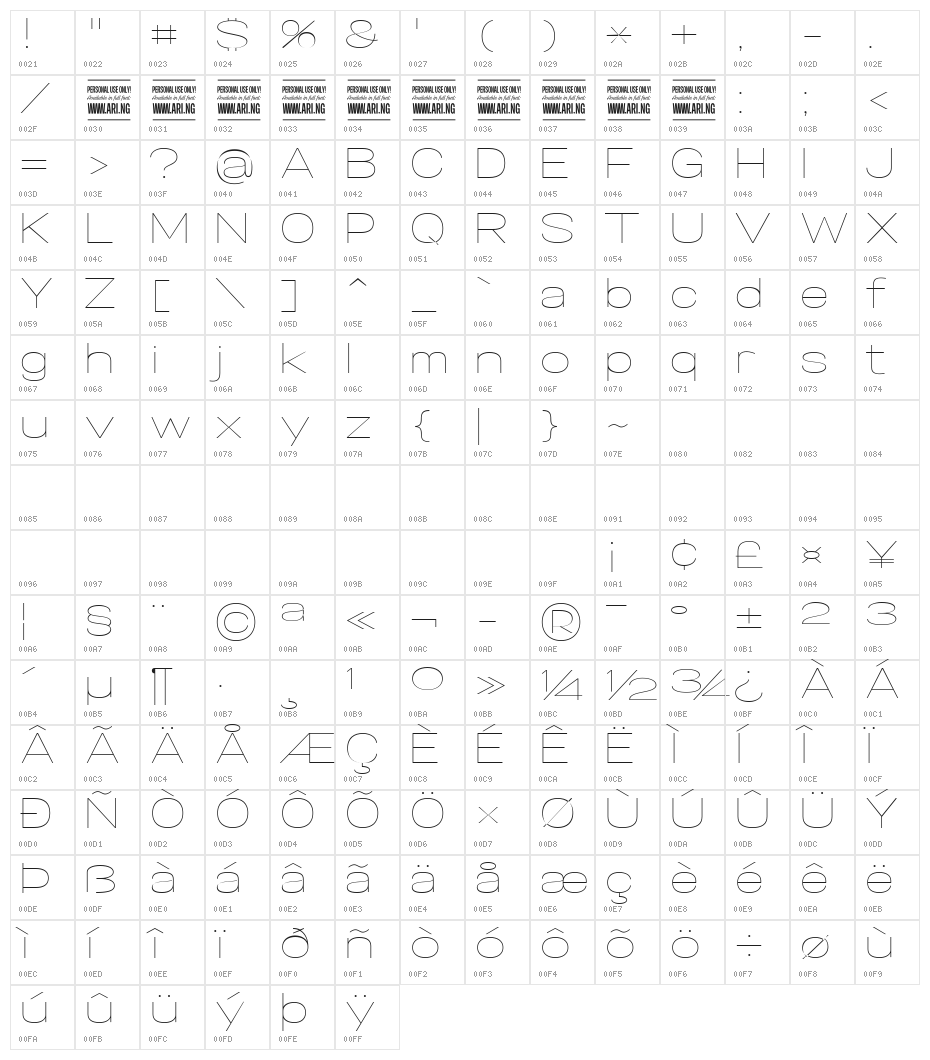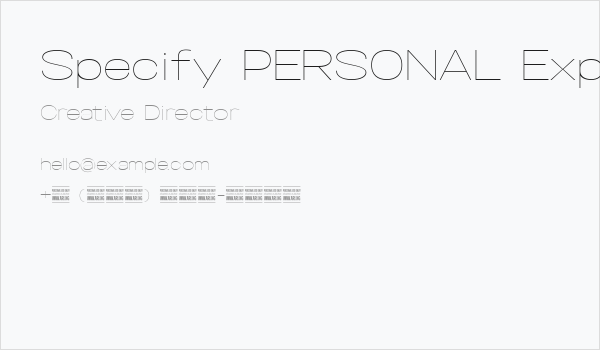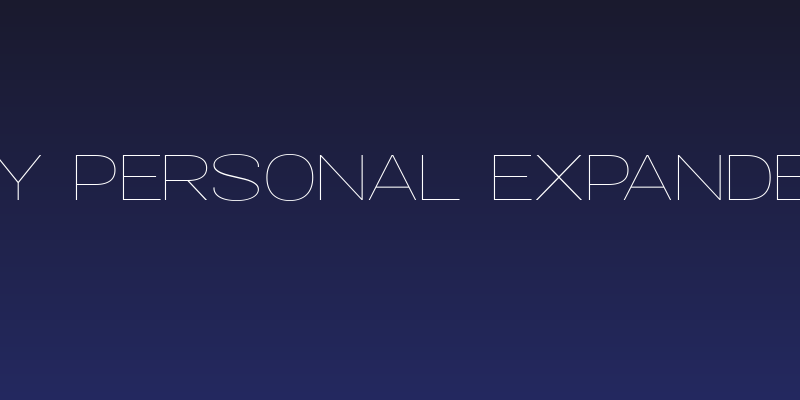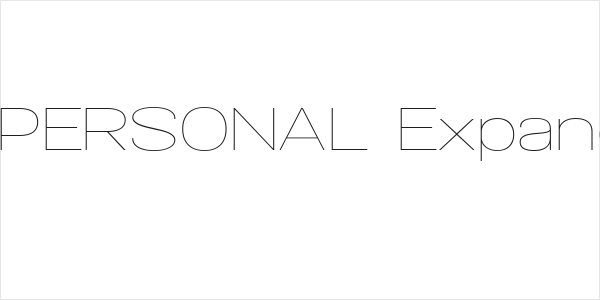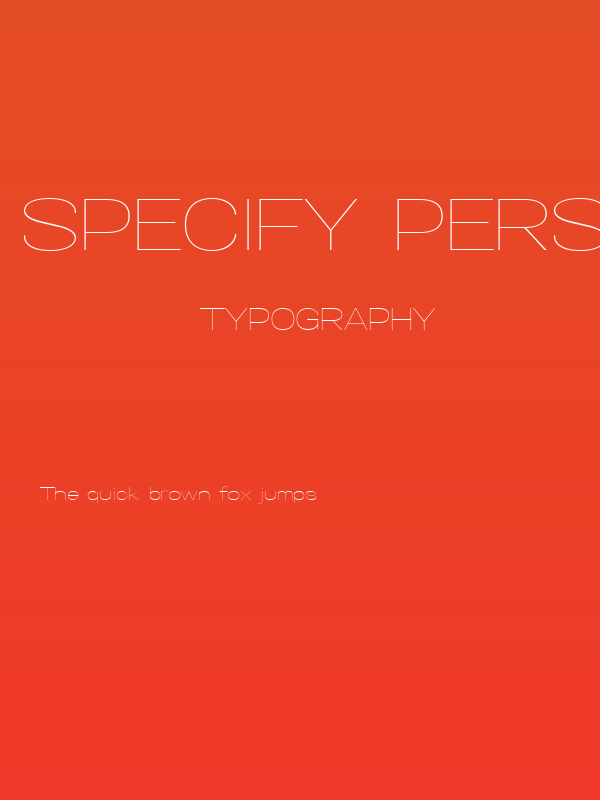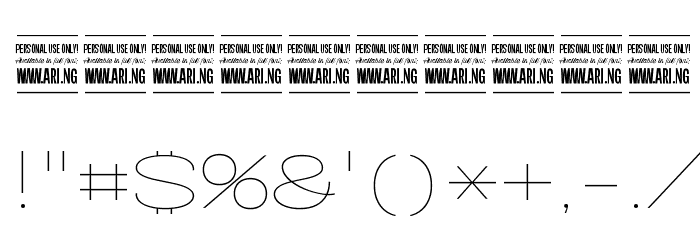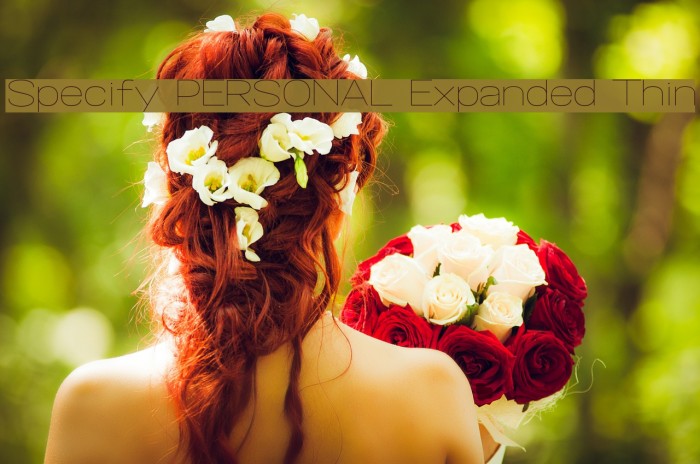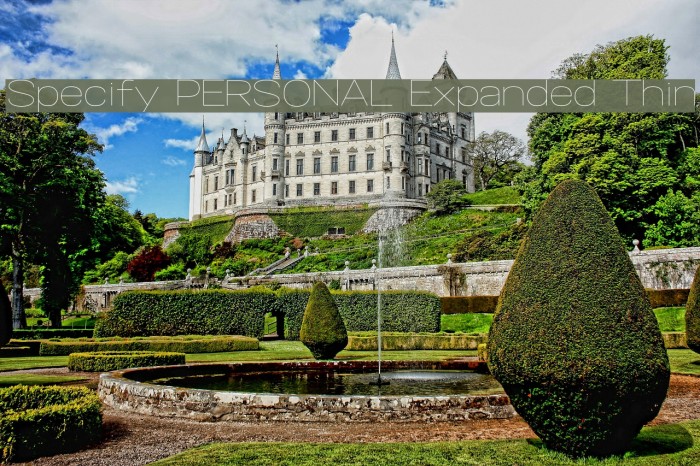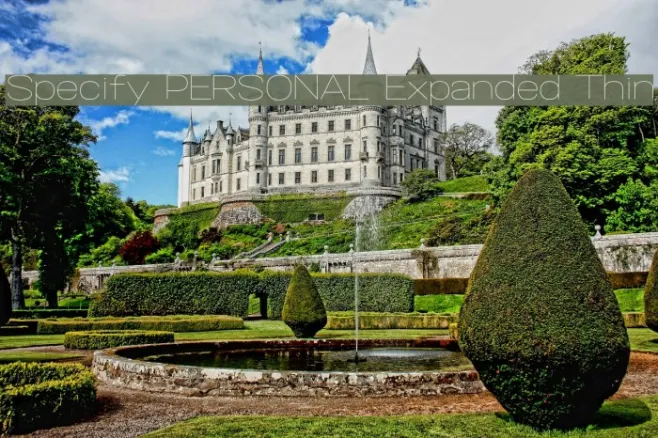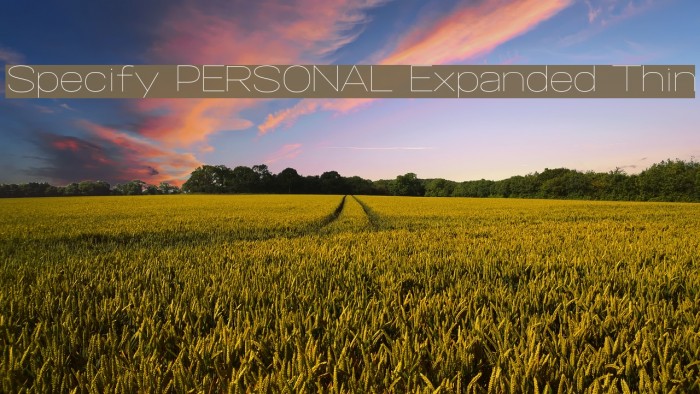
Specify PERSONAL Expanded Thin Font
Specify PERSONAL Expanded Thin Description
This font features a sleek, modern design with an expanded width and thin strokes, creating a minimalist and elegant appearance. The characters are clean and geometric, with a consistent line weight that enhances readability while maintaining a sophisticated look. The uppercase and lowercase letters are well-proportioned, and the numerals and special characters complement the overall style. This font is ideal for projects that require a contemporary and refined aesthetic.
| Proposed Projects | Ideal for branding, editorial design, web design, and minimalist posters. |